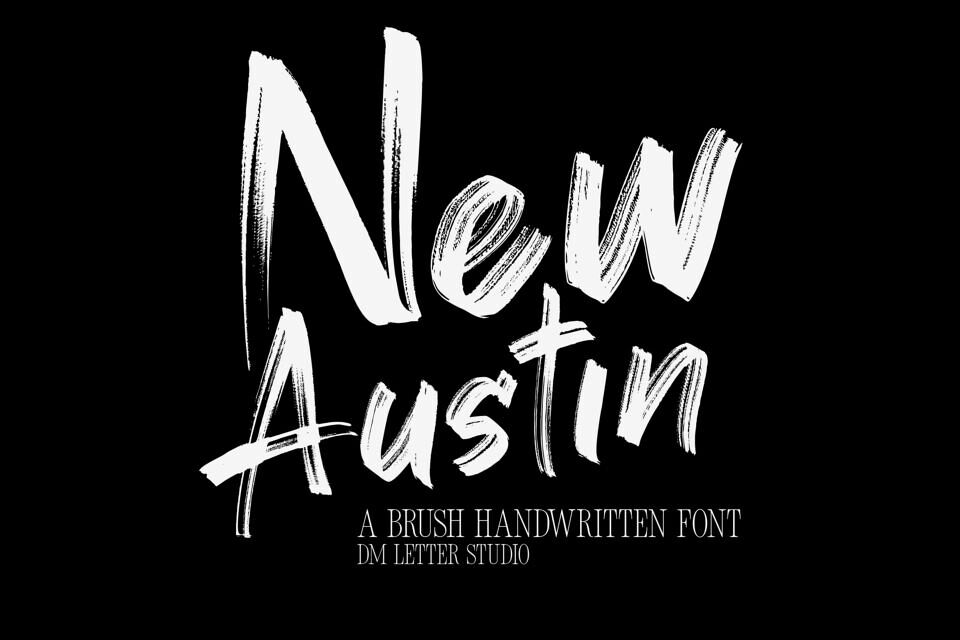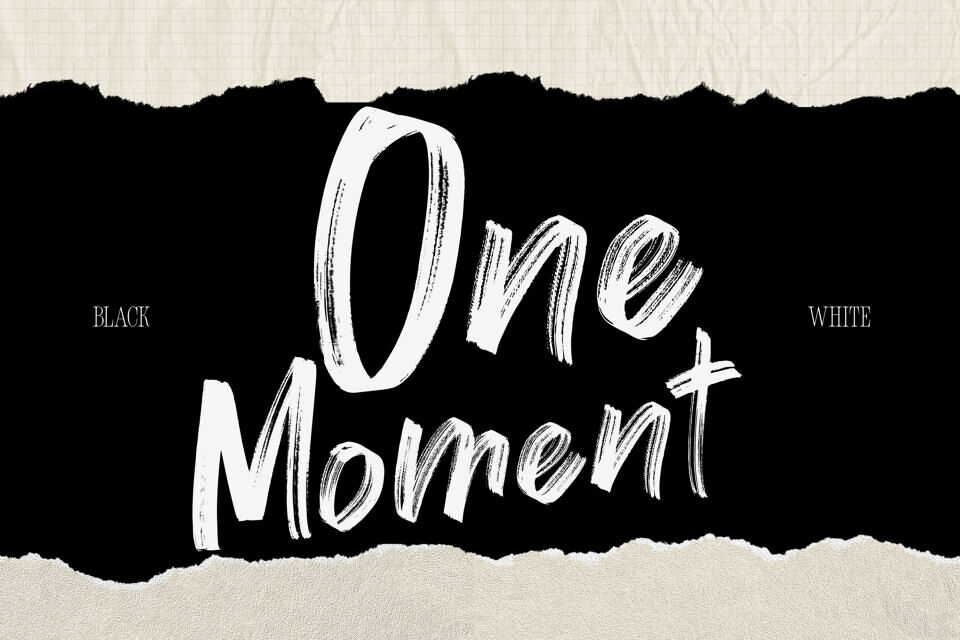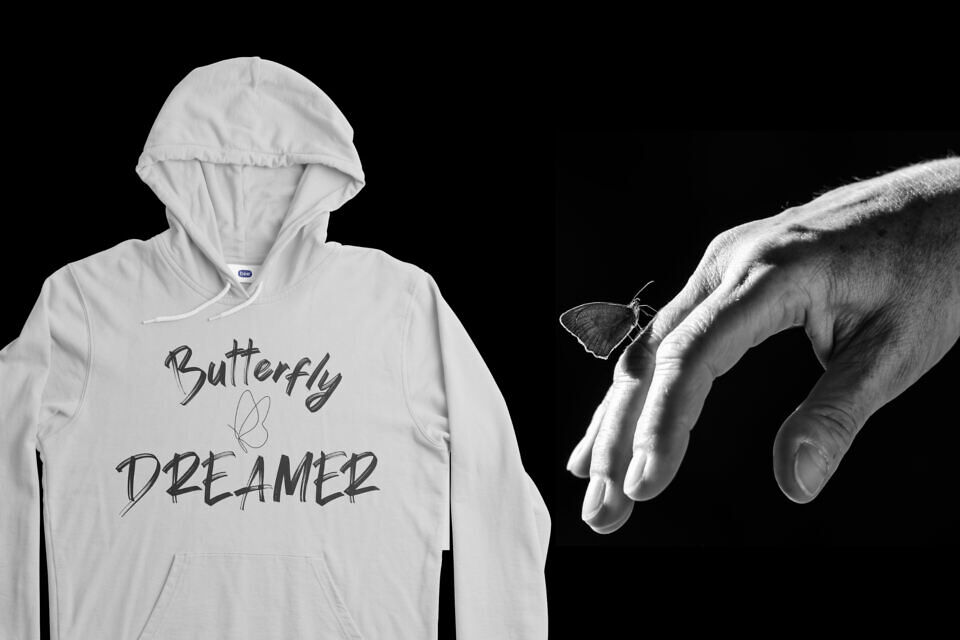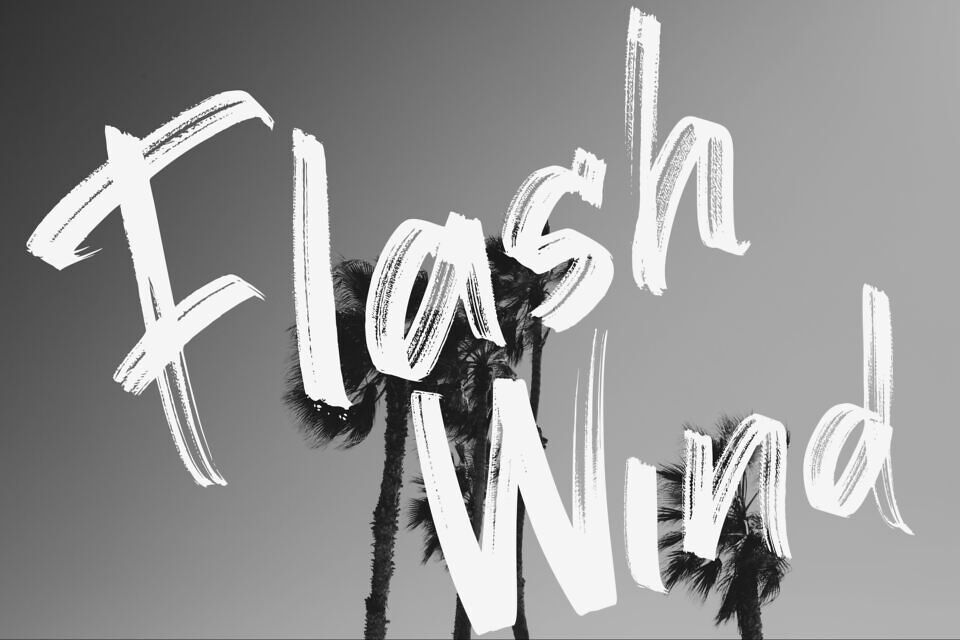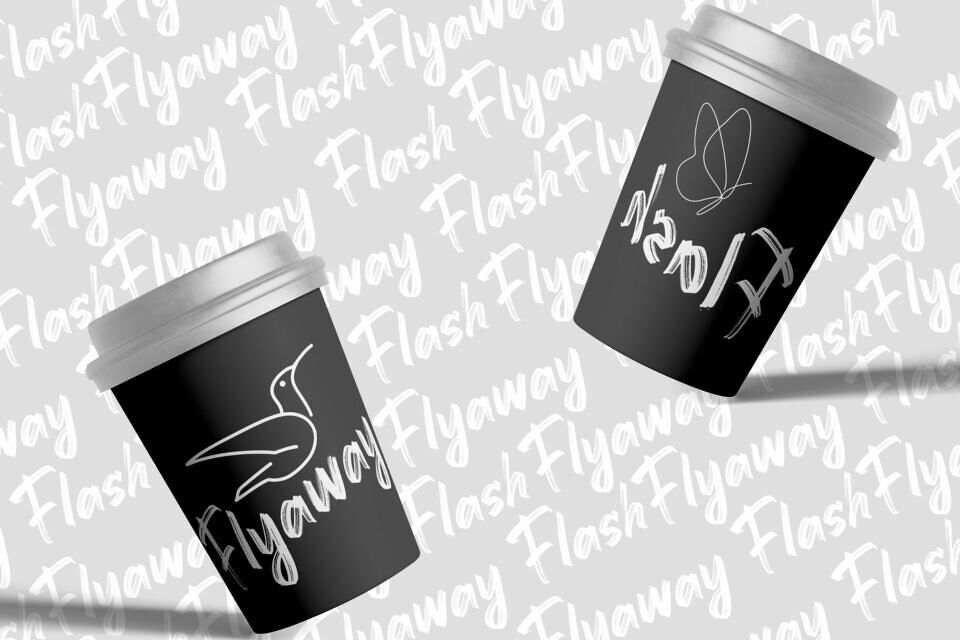
New Austin is a bold, free-flowing brush handwritten font that radiates confidence and creativity. With rough, textured strokes and a natural slant, this font brings a hand-painted energy that’s perfect for statement designs.
Whether you’re working on bold branding, urban posters, or social media graphics, New Austin delivers loud personality in a handwritten style.